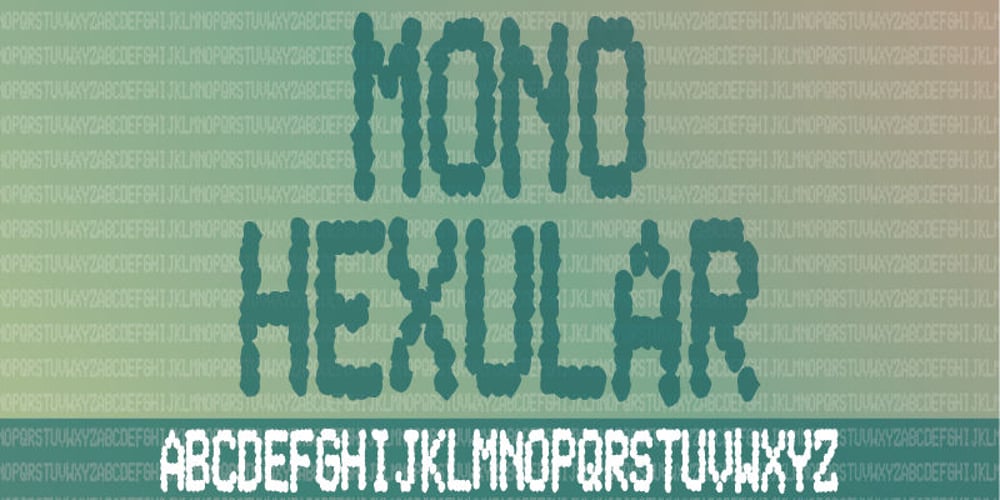
Mono Hexular Font Family was designed by Jakob Fischer and published by PizzaDude.dk. Mono Hexular contains 1 styles and family package options. A wrecked, monospaced font containing 278 ligatures and unique accented characters! You will need to use OpenType supporting applications to use the autoligatures.